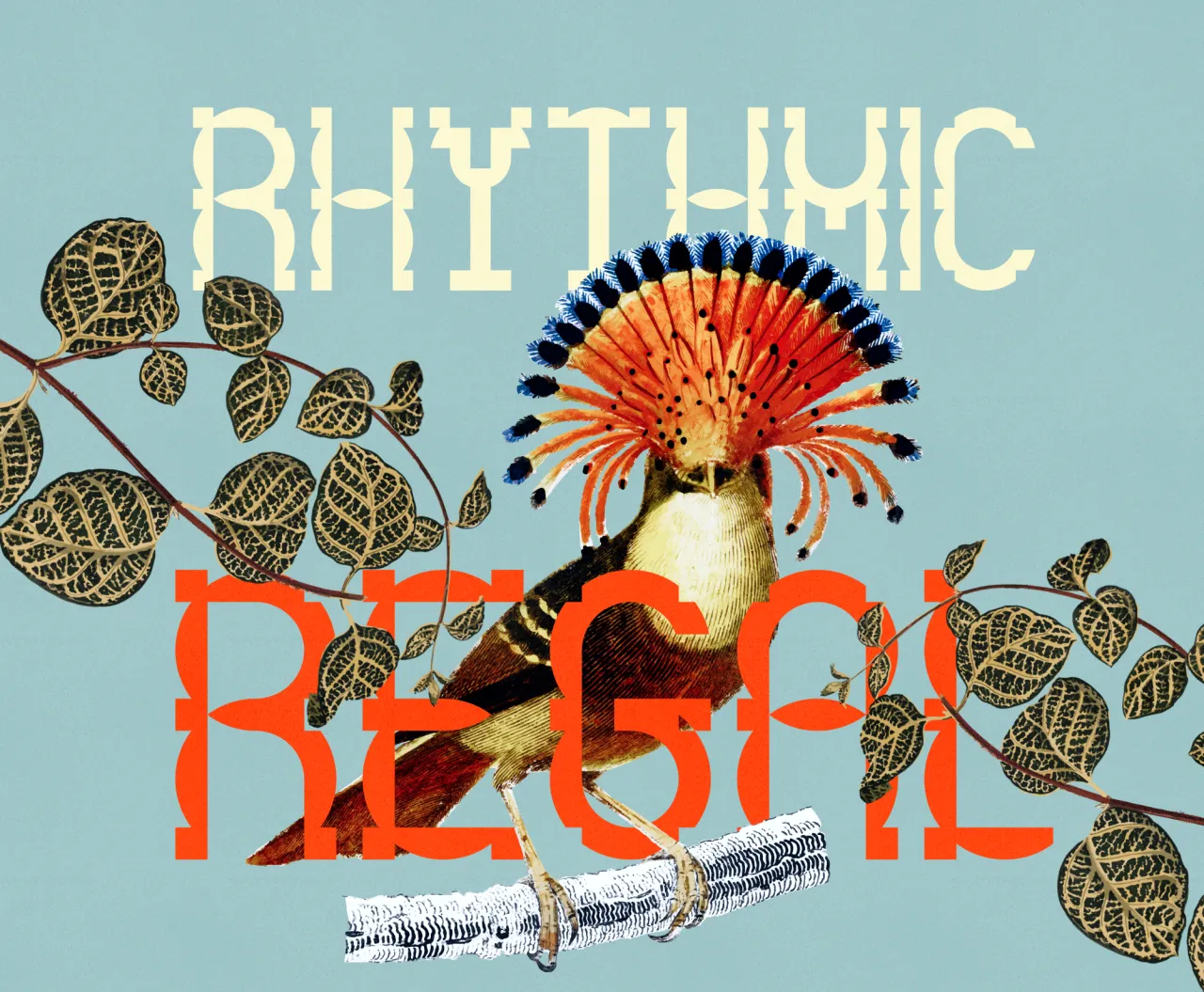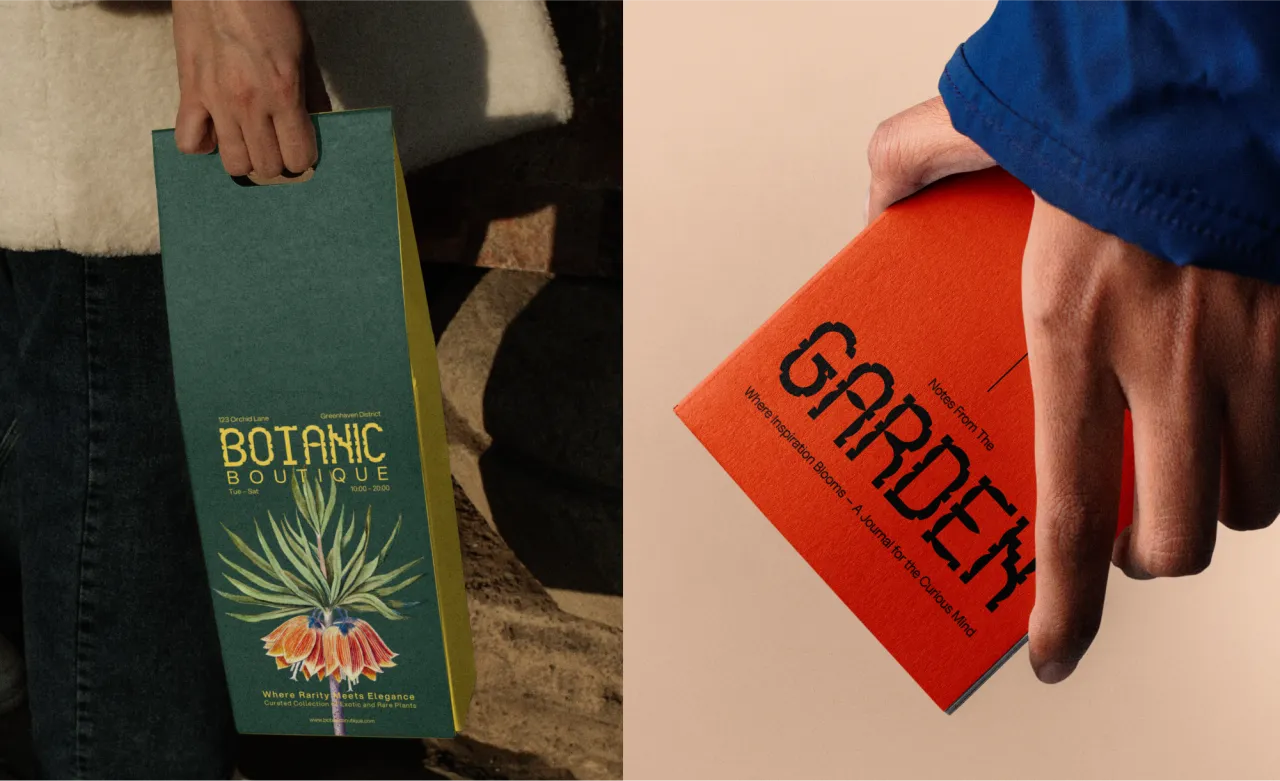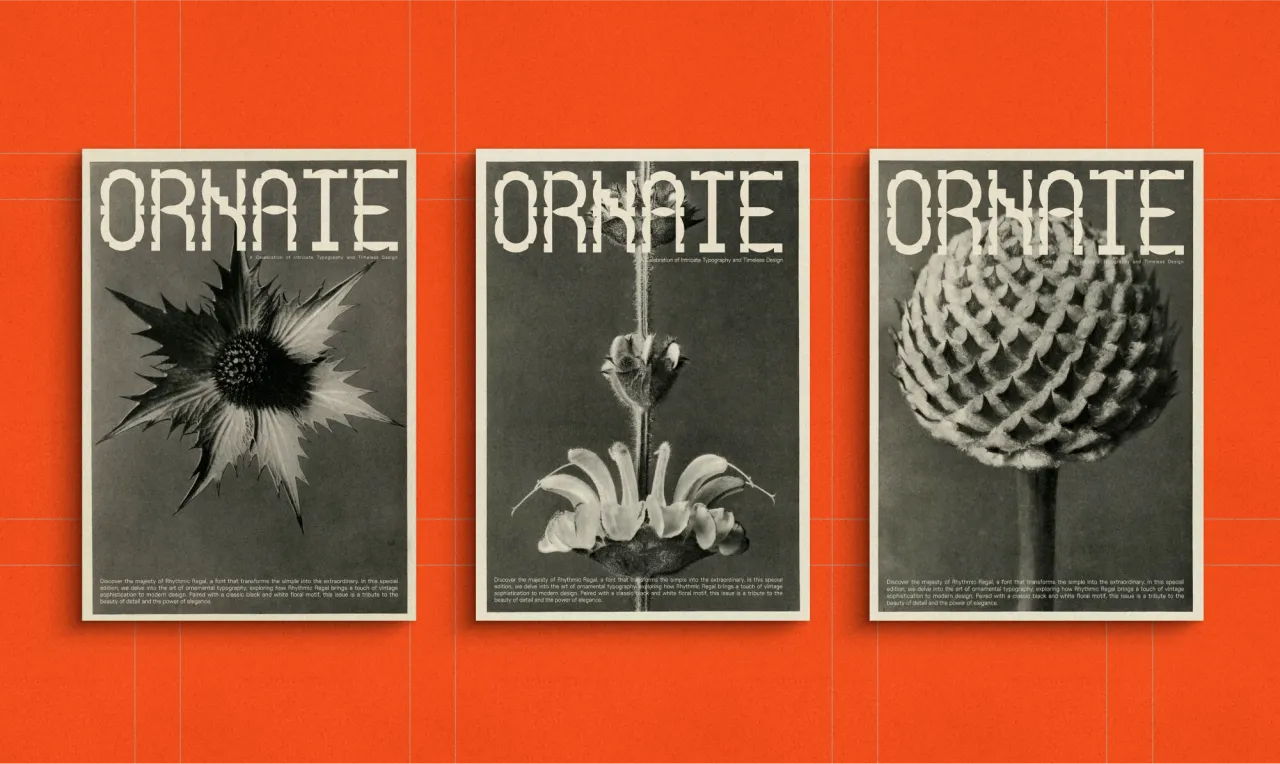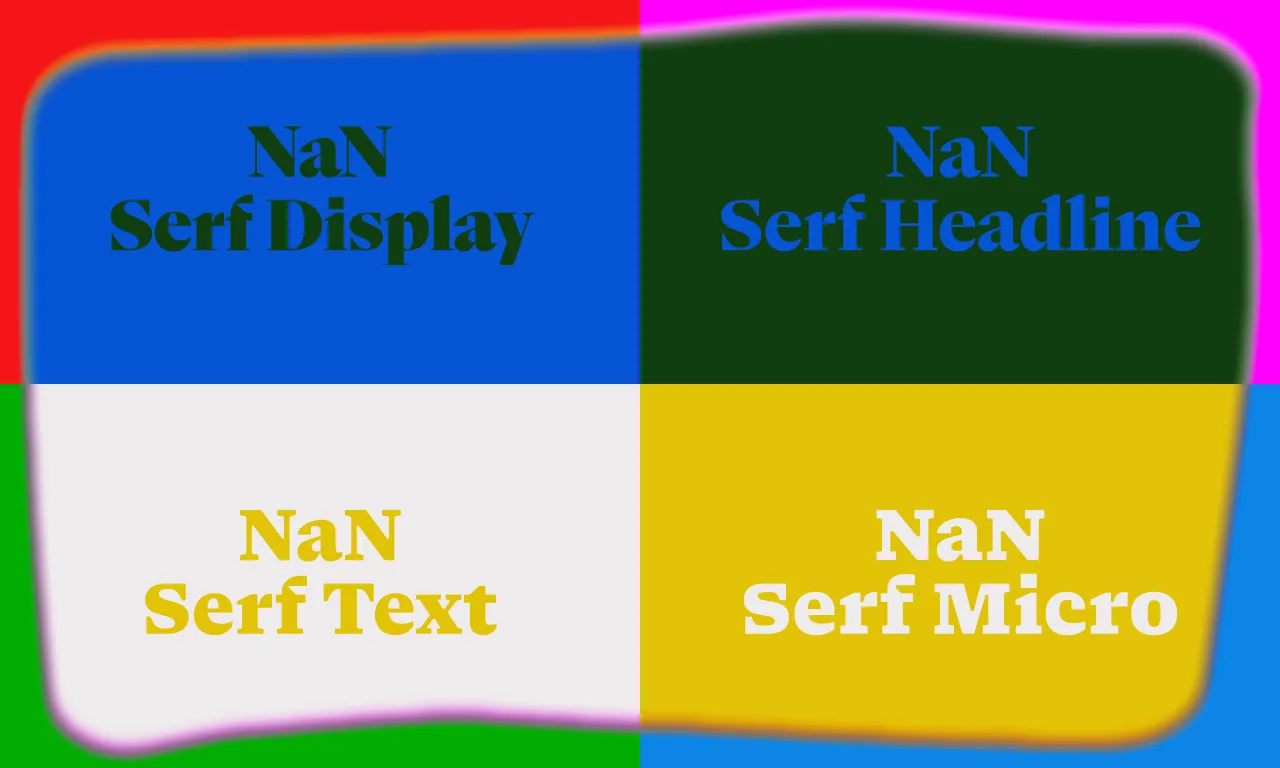
50 fonts that will be popular with designers in 2025
We asked the creative community about the fonts they're excited to use over the next 12 months… and here they are. Read on to discover the typefaces that will define 2025's visual landscape.
Alebrijes by Shivani Parasnis using Obviously by Oh No Type Co., Art Director, Brand & Creative—Spotify
Typography is a funny thing because while it's largely based on fundamental, eternal principles, it nonetheless continues to evolve year after year. Most notably, some of the best font foundries are constantly working to develop new typefaces and reinvigorate beloved classics.
With all these fabulous fonts in the ether, though, it's easy to miss out on a lot of the good stuff. So, we asked the Creative Boom community to highlight their favourite fonts going into 2025. And we present the 50 most popular in our article below.
This year's selection showcases a diverse range of styles, from timeless classics reimagined for the digital age to cutting-edge designs that push the boundaries of legibility and aesthetics. More specifically, we're seeing a resurgence of elegant serifs, now optimised for screen readability, alongside bold, expressive sans serifs perfect for making a statement in branding and editorial design.
Our list also reflects the ongoing shift towards versatility and functionality, with many typefaces offering extensive language support and a wide range of weights and styles. At the same time, handwritten and display fonts continue to captivate, offering unique personalities for projects that demand a touch of the extraordinary. (For a deeper discussion of developments in the field, meanwhile, make sure you read our article The biggest font trends to look out for 2025.)
Whether you're looking to refresh your go-to font choices or seeking that perfect typeface for an upcoming project, you're sure to find something new and exciting in the selection below. Plus, for further inspiration, our 2024 list is still very much worth looking at too.
1. TYPE BY Quadraat by Fred Smeijers
Quadraat is a versatile typeface that combines Renaissance elegance with contemporary ideas on construction and form. Its letterforms feature vibrant outlines without being overly flashy or dated. Designer Fred Smeijers' first commercial typeface, released in 1992, was fully remastered in 2019 and re-hinted to meet the demands of today's digital technology. With its calligraphic roots and sharp edges, it's a great choice for evoking a sense of elegant authority.
2. Arnhem by Fred Smeijers
Another typeface by Fred Smeijers was initially designed for the Nederlandse Staatscourant, the daily newspaper of the Dutch state. As you'd imagine, it has a very functional design suitable for setting long text, making it a good option for any designer prioritising legibility in their designs.
3. RST Thermal by Reset
RST Thermal is a variable font that blends classical typography with modern design, focusing on balance and contrast. It features two axes, weight and optical size, offering versatility for text and display applications. The regular and italic weights create a warm atmosphere, drawing inspiration from 16th-century French type designer Robert Granjon. This design evokes a comforting rhythm, enhancing readability and providing a familiar, enjoyable experience.
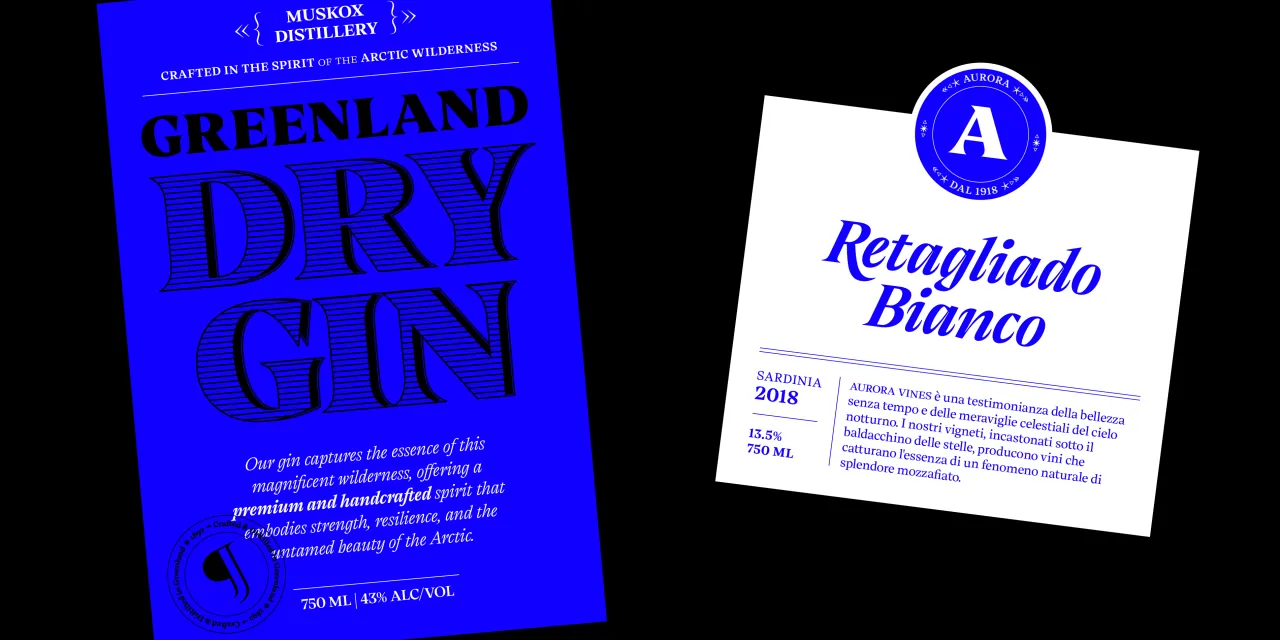
RST Thermal by Reset
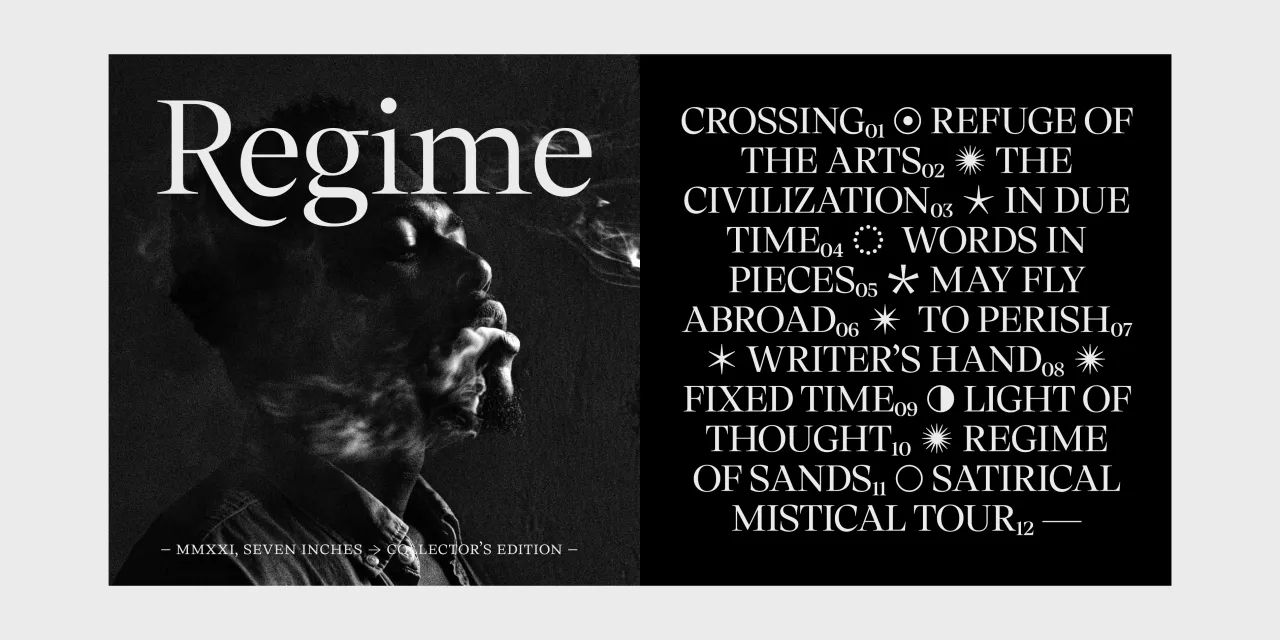
RST Thermal by Reset
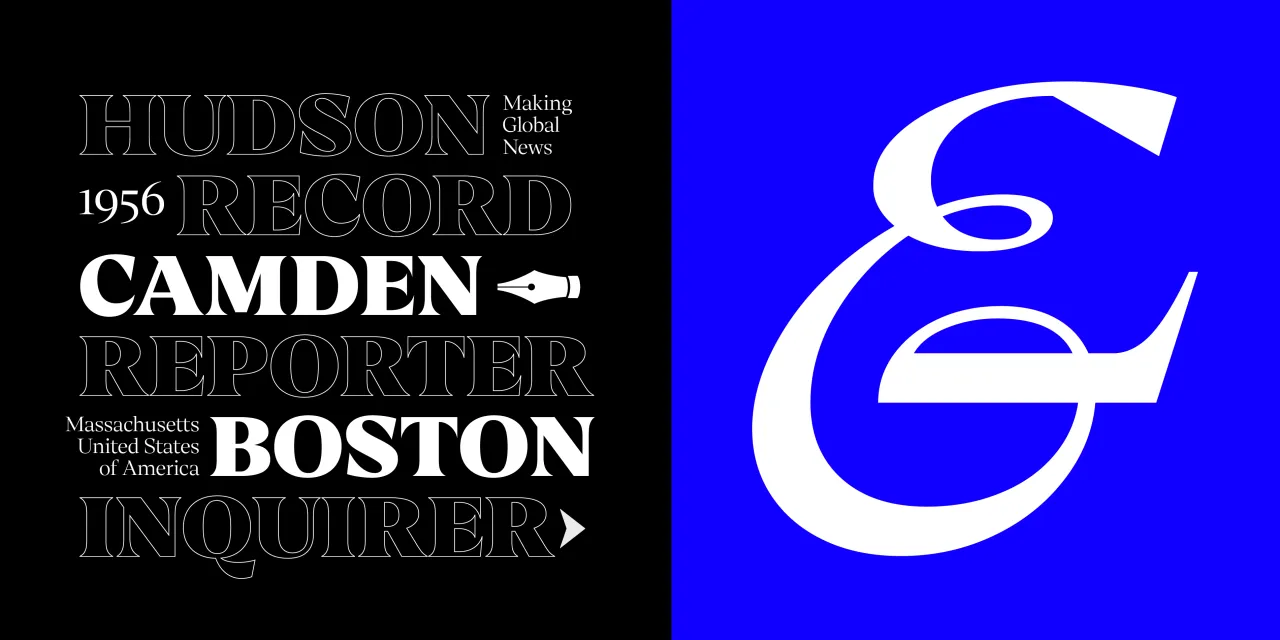
RST Thermal by Reset
4. Druk by Berton Hasebe
Designed by Berton Hasebe, Druk is a bold, condensed display typeface designed for impactful headlines. Originally commissioned for Bloomberg Businessweek in 2011, it draws inspiration from artists such as Willem Sandberg and Barbara Kruger, as well as historical condensed sans serifs, notably Annonce Grotesk. Hasebe's design choices include flat surfaces for clean stacking and tighter spacing to enhance visual impact.
4. Romie by Margot Leveque
Romie is a calligraphy-inspired display font created by Margot Lévêque, which carries forward the rich legacy of influences from Lubalin and Bookman. Available in 12 styles, it's a delicate, elegant serif with a modern twist, making it ideal for editorial use. It supports over 300 languages worldwide, and an update in June 2024 includes all italic styles, completing the family.
5. PP Editorial New by Pangram Pangram
Designed by Mat Desjardins and Francesca Bolognini, this precise and elegant narrow serif typeface combines a retro mid-90s feel with a contemporary richness. Its lighter weights exude elegance and refinement, making it ideal for fashion brands and magazines, while the regular weight offers excellent legibility for editorial content without being bland. The heavier weights feature exaggerated curves, adding personality to designs, especially when paired with its lush italics. This font comes in 16 styles, each with 463 glyphs.
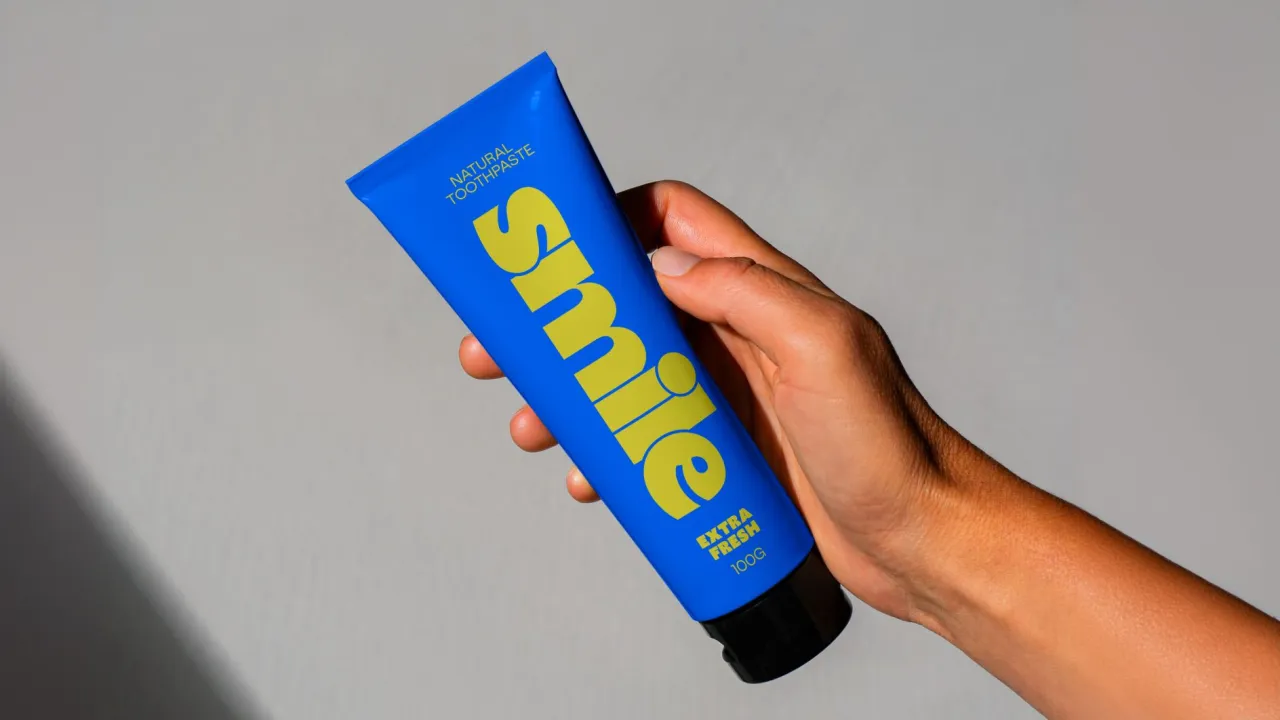
Jubel by Type of Feeling
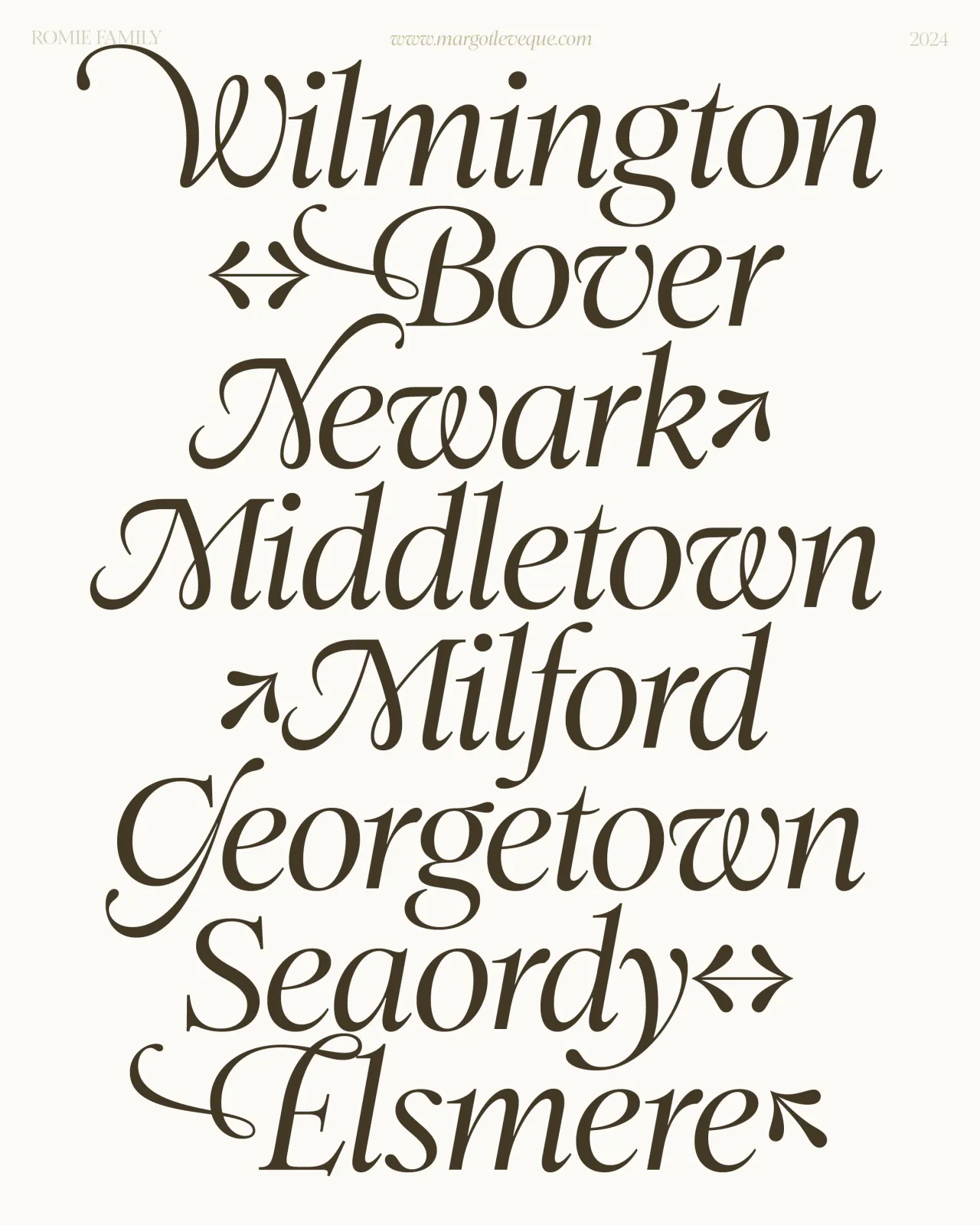
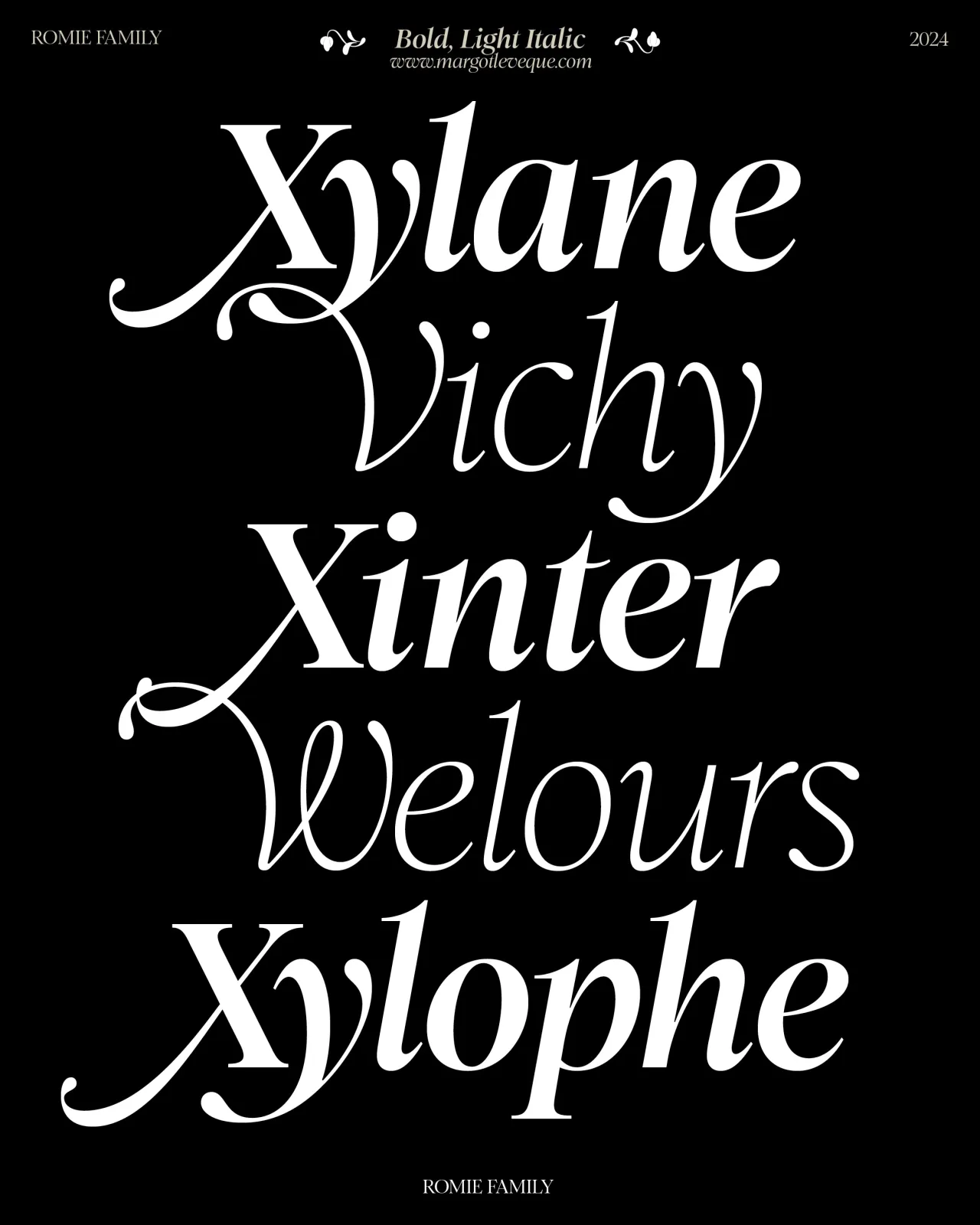
. In use by [Garbett](https://garbett.com.au/) for Career Trackers](https://media.creativeboom.com/514ca61a-e599-4ae7-bed3-a107421ce0f3/conversions/e8ba48815e7898e3d263f3452e50572efdb4fd9a-medium.webp)